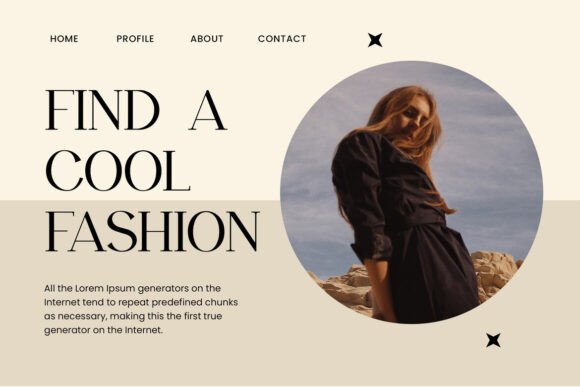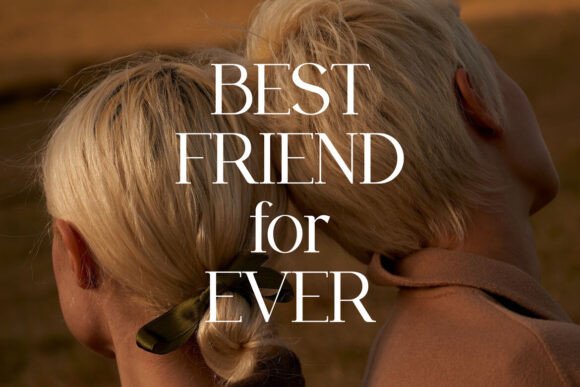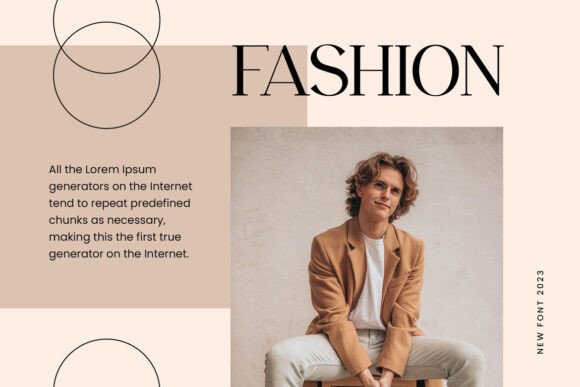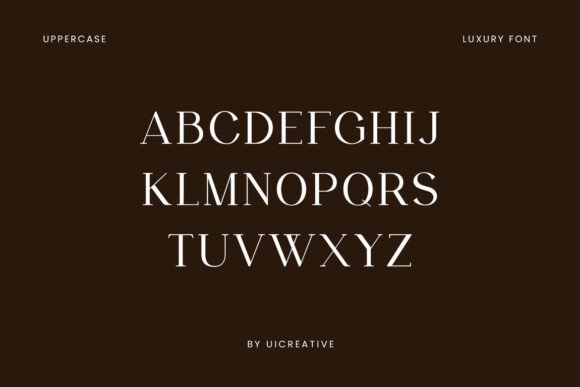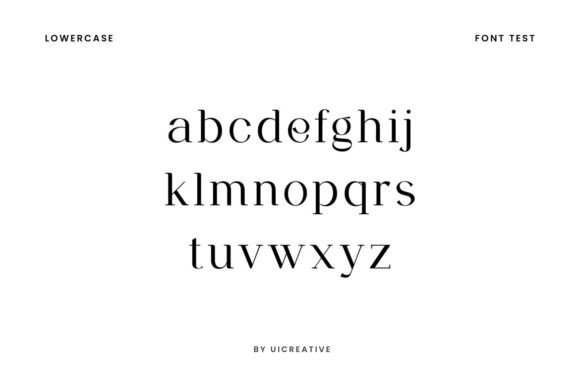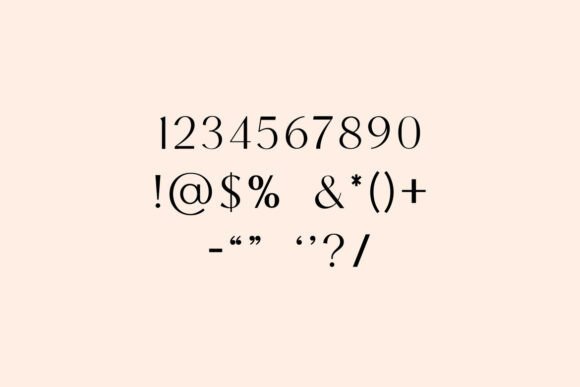
Introducing Breakwater Font: Elevate Your Designs with Modern Elegance
In the world of typography, fonts play a crucial role in conveying the tone and personality of a brand or design. If you’re a designer or crafter looking for a modern, elegant, and stylish font to elevate your projects, look no further than Breakwater Font. This stunning modern serif font is designed to make a statement, exuding a sense of classiness and sophistication that’s perfect for a wide range of applications.
What is Breakwater Font?
Breakwater Modern Serif Font is a beautifully crafted typeface that embodies the perfect blend of modernity and elegance. Its sleek lines, refined curves, and precise letter spacing make it an ideal choice for designers seeking to create visually stunning designs. Whether you’re working on a logo, branding, or editorial project, Breakwater Font is sure to impress.
Key Features of Breakwater Font
- Modern and Elegant Design: Breakwater Font boasts a sleek, modern design that’s both elegant and sophisticated.
- Versatile: This font is suitable for a wide range of projects, including signature, stationery, logo, wedding, typography quotes, magazine or book covers, website headers, branding, and more.
- Masculine and Feminine Qualities: Breakwater Font displays both masculine and feminine qualities, making it perfect for fashion-related branding or editorial design.
- High-Quality Typography: With precise letter spacing and refined curves, Breakwater Font ensures high-quality typography that’s easy to read and visually appealing.
Use Cases for Breakwater Font
Breakwater Font is an incredibly versatile typeface that can be used in a variety of contexts. Here are some ideas to get you started:
- Logo Design: Create a lasting impression with a custom logo that showcases your brand’s personality and values.
- Branding and Identity: Establish a strong brand identity with Breakwater Font, perfect for fashion, beauty, or lifestyle brands.
- Editorial Design: Elevate your magazine or book covers, typography quotes, and website headers with this stunning modern serif font.
- Wedding and Event Design: Add a touch of elegance to your wedding or event designs, including invitations, programs, and signage.
Why Choose Breakwater Font?
With so many fonts available, why choose Breakwater Font? Here are just a few reasons:
- Unique and Distinctive: Breakwater Font stands out from the crowd with its modern, elegant design.
- Easy to Read: Despite its elegant design, Breakwater Font remains highly legible, making it perfect for body text and headlines.
- Highly Versatile: This font can be used in a wide range of contexts, from digital designs to print materials.
In conclusion, Breakwater Font is a stunning modern serif font that’s perfect for designers and crafters seeking to elevate their designs. With its elegant design, versatile use cases, and high-quality typography, this font is sure to become a staple in your design toolkit. Whether you’re working on a logo, branding, or editorial project, Breakwater Font is the perfect choice for adding a touch of modern elegance and sophistication.